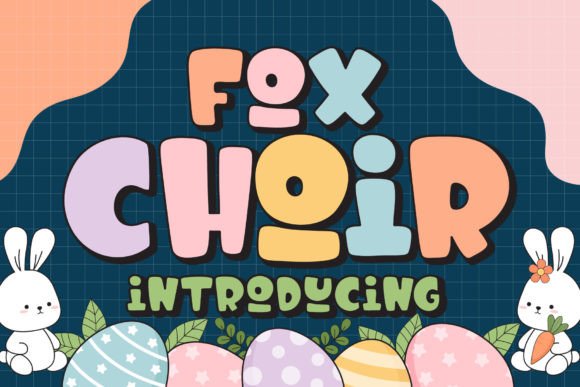
Introducing Fox Choir Font: The Ultimate Display Font for Captivating Designs
In the world of typography, fonts play a crucial role in making or breaking a design. A well-chosen font can elevate your creative project, making it more engaging and memorable. If you’re looking for a bold and playful display font that adds a captivating and energetic touch to your designs, look no further than Fox Choir Font. In this article, we’ll explore the features and benefits of Fox Choir Font, and how it can help you create stunning designs that grab attention.
What Makes Fox Choir Font Stand Out?
Fox Choir Font is a bold and playful display font that boasts a vibrant and expressive design. Its main feature is its ability to add a captivating and energetic touch to your designs, making it perfect for creating attention-grabbing headlines, t-shirt typography, banners, product labels, and more. With its versatility and eye-catching presence, Fox Choir Font is an excellent choice for designers looking to make a statement.
Key Features of Fox Choir Font:
- Bold and Playful Design: Fox Choir Font features a bold and playful design that’s sure to grab attention.
- Vibrant and Expressive: The font’s vibrant and expressive design makes it perfect for creating energetic and captivating designs.
- Versatile: Fox Choir Font is versatile and can be used for a variety of design projects, from headlines and t-shirt typography to banners and product labels.
- Easy to Read: Despite its bold design, Fox Choir Font is easy to read, making it perfect for use in a variety of contexts.
How to Use Fox Choir Font in Your Designs
Fox Choir Font is an incredibly versatile font that can be used in a variety of design projects. Here are some ideas for using Fox Choir Font:
Design Ideas:
- Headlines: Use Fox Choir Font to create attention-grabbing headlines for your blog posts, articles, or website.
- T-Shirt Typography: Fox Choir Font is perfect for creating bold and playful t-shirt designs.
- Banners: Use Fox Choir Font to create eye-catching banners for your website, social media, or marketing materials.
- Product Labels: Fox Choir Font is a great choice for creating product labels that stand out on store shelves.
- Social Media Graphics: Use Fox Choir Font to create engaging social media graphics that grab attention.
The Benefits of Using Fox Choir Font
Fox Choir Font offers a range of benefits that make it an excellent choice for designers. Here are some of the benefits of using Fox Choir Font:
Benefits:
- Grabs Attention: Fox Choir Font is designed to grab attention, making it perfect for creating designs that stand out.
- Increases Engagement: The font’s playful and energetic design can help increase engagement with your audience.
- Versatile: Fox Choir Font can be used in a variety of design projects, making it a great addition to your font library.
- Easy to Read: Despite its bold design, Fox Choir Font is easy to read, making it perfect for use in a variety of contexts.
- Unique: Fox Choir Font is a unique font that can help you differentiate your designs from others.
Tips and Tricks for Using Fox Choir Font
Here are some tips and tricks for using Fox Choir Font in your designs:
Tips:
- Use it Sparingly: Fox Choir Font is a bold font, so use it sparingly to avoid overwhelming your design.
- Pair it with Other Fonts: Fox Choir Font pairs well with other fonts, so experiment with different pairings to find the perfect combination.
- Experiment with Colors: Fox Choir Font looks great in a variety of colors, so experiment with different colors to find the perfect one for your design.
- Use it for Headlines: Fox Choir Font is perfect for creating attention-grabbing headlines, so use it to make a statement.
In conclusion, Fox Choir Font is a bold and playful display font that adds a captivating and energetic touch to your designs. With its versatility and eye-catching presence, Fox Choir Font is an excellent choice for designers looking to make a statement. Whether you’re creating headlines, t-shirt typography, banners, or product labels, Fox Choir Font is a great choice. So why not give it a try and see how it can elevate your designs?